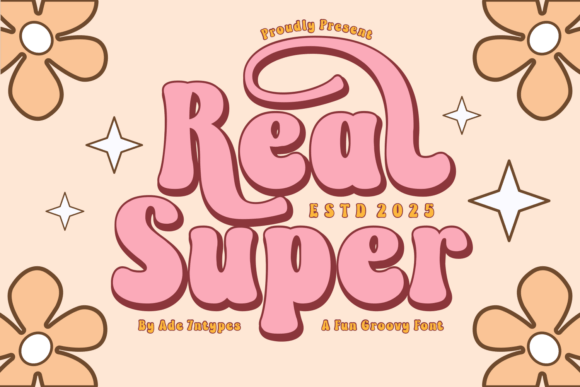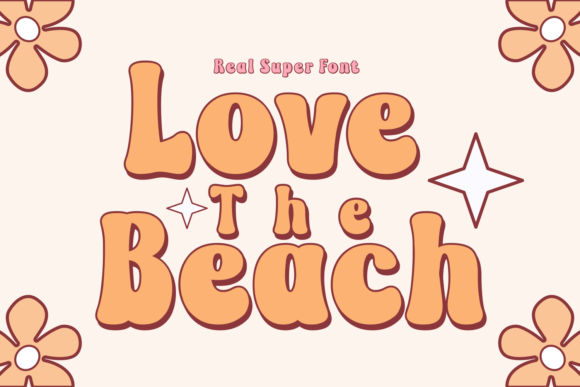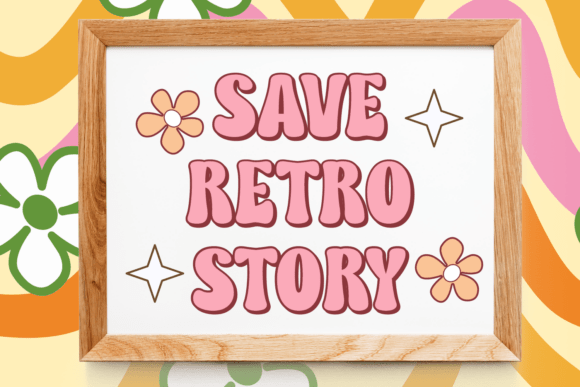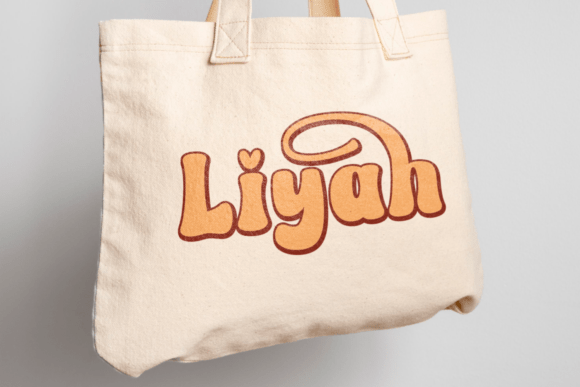
Real Super Font: Groovy Retro Display Font for Cricut Crafts
About the Real Super Font
The Real Super Font is here to transform your projects with its distinctive character and style. Welcome to ‘Real Super Retro Fonts’, where vintage meets modernity, evoking strong nostalgia vibes with our groovy 70s collection. Each font design we create does not just serve its purpose, but also acts as an artistic expression. Our variety encompasses everything from Elegant Serifs to Playful sans-serifs. Created for diverse applications, they are perfect for sublimation, SVG, Cricut crafting, and even display uses.